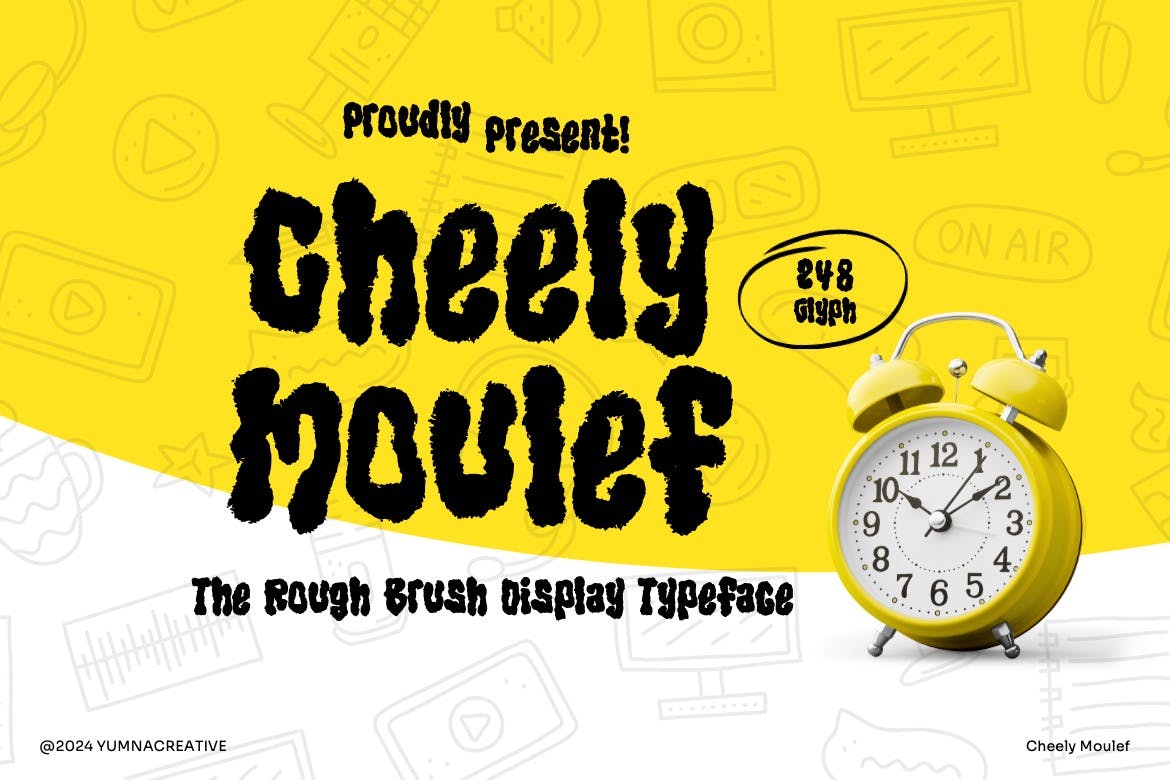
Cheely Moulef – Rough Brush Font
Cheely Moulef is a rough brush font designed to add a unique, artistic flair to any project. With its bold and expressive style, this font is ideal for large displays and posters, making it perfect for eye-catching designs. The normal spacing ensures readability while maintaining a dynamic aesthetic, allowing users to create visually striking text with ease.